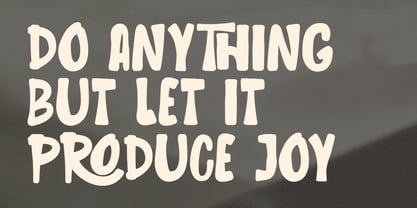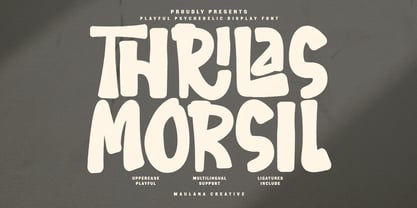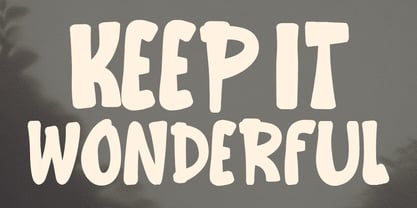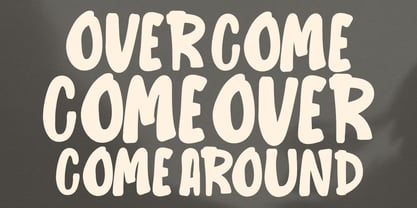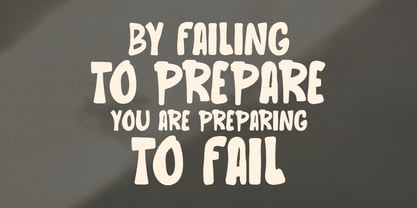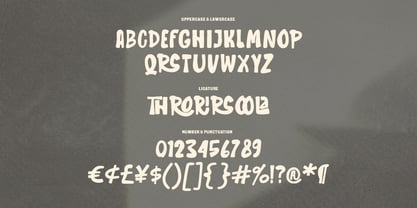
MC Thrilas Morsil
by Maulana Creative
The MC Thrilas Morsil Font Family was designed by Gilang Maulana and published by Maulana Creative. MC Thrilas Morsil contains 1 styles. More about this family
Step into a world of fluid creativity with Thrilas Morsil, a display font that perfectly balances retro psychedelic vibes with a modern, playful twist. Inspired by the melting shapes of the hippie era, this typeface features unique, wobbly strokes and expressive ligatures that give your text a rhythmic, "groovy" movement. Whether you are designing eye-catching posters, trendy apparel, vibrant social media graphics, or bold brand identities, Thrilas Morsil adds an instant touch of joyful nostalgia. It comes packed with multilingual support and special ligatures to ensure your designs look hand-crafted and authentic.
Designers: Gilang Maulana
Foundry: Maulana Creative